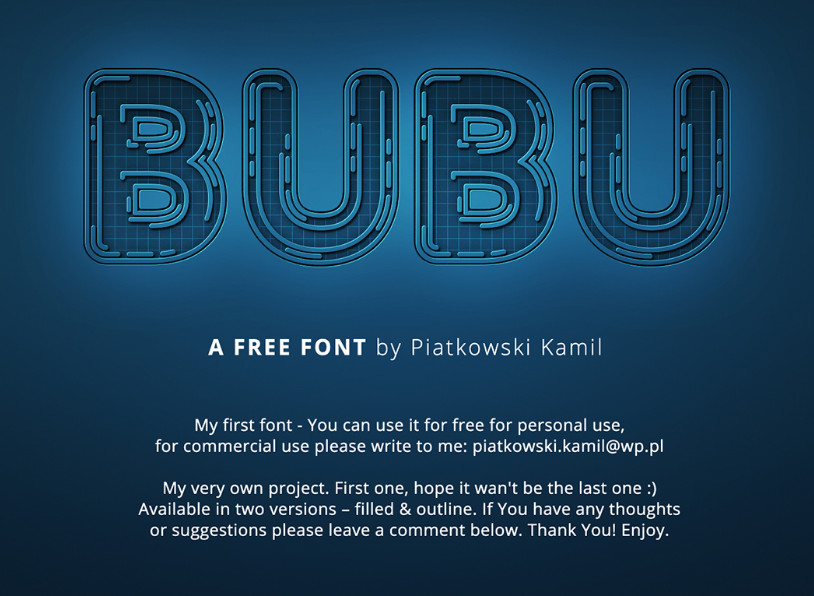
BUBU FONT FREE DOWNLOAD TYPEFACE
Introduce to you a special display font. BUBU Typeface is designed by Kamil Piatkowski, a designer from Poznań, Poland. First one, hope it wan’t be the last one Available in two versions – filled & outline. If You have any thoughts or suggestions please leave a comment below.